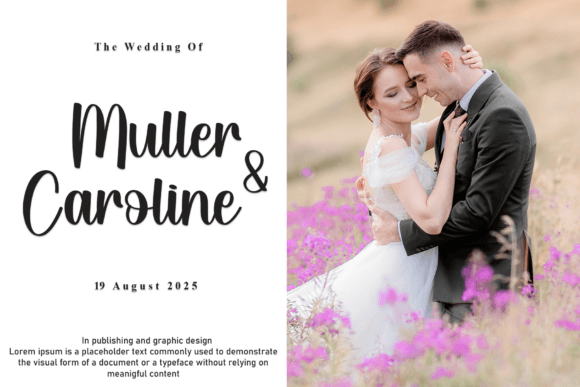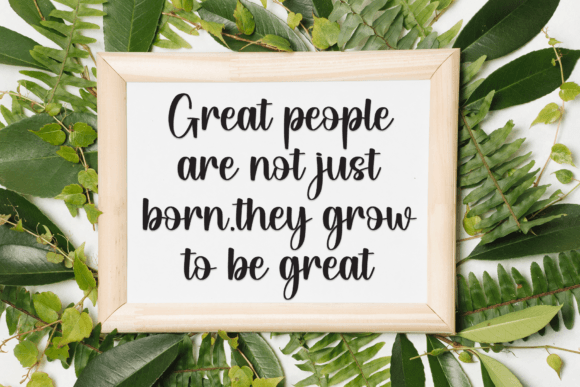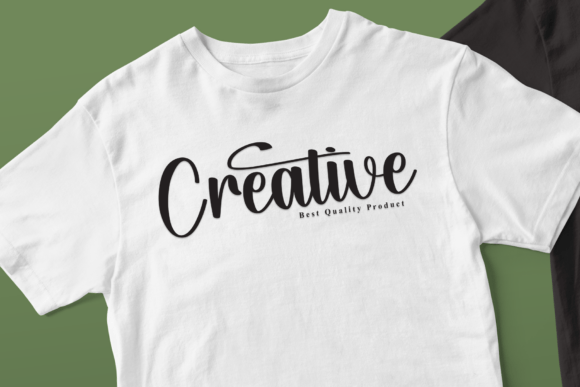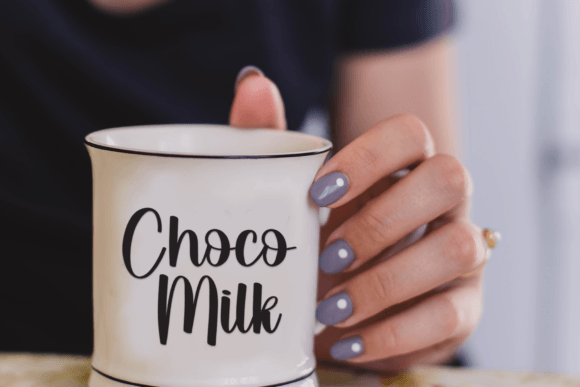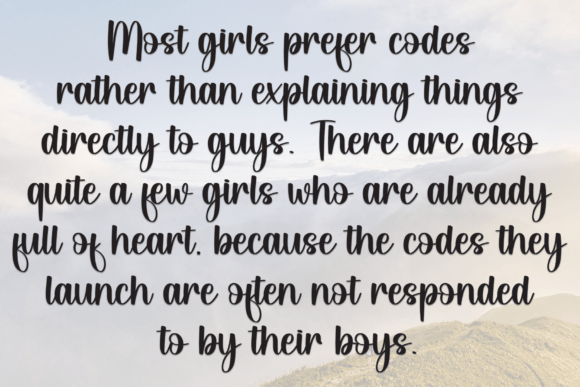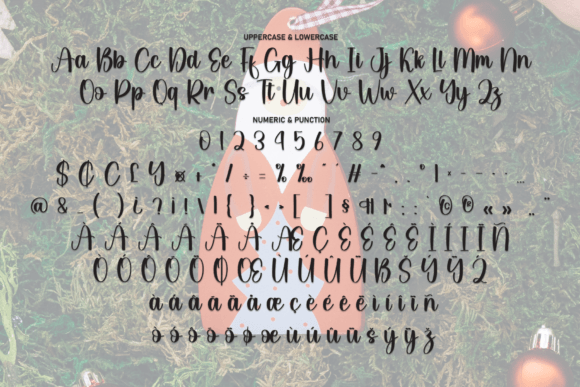
Introduction to Christmas Hapstel Font
Christmas Hapstel is a fun, bold handwritten font that captures the spirit of the holidays.
With its playful letters and festive style, it adds a joyful touch to Christmas cards, gifts, and decorations Perfect for anyone who loves a cozy, cheerful vibe during the holiday season.
Key Features of Christmas Hapstel Font